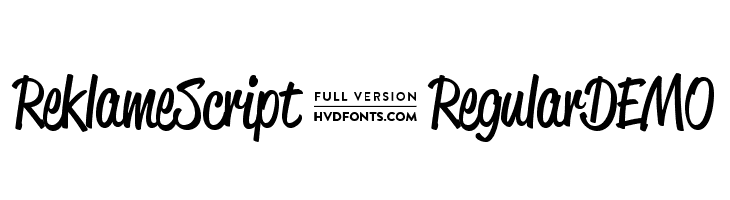
• ReklameScript-RegularDEMO шрифт
( HvD Fonts - Hannes von Döhren - www.hvdfonts.com )
A bold, lively script font with flowing, handwritten letterforms.